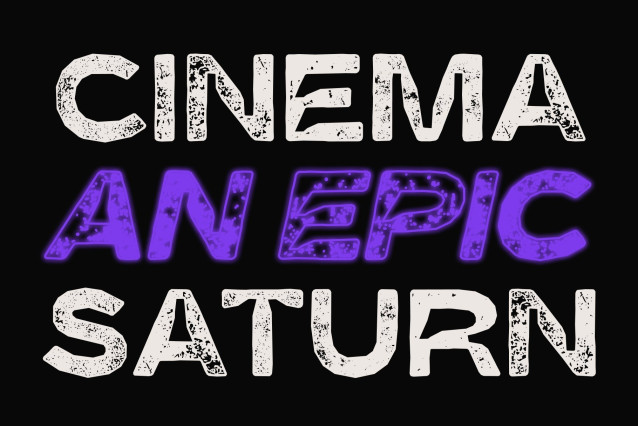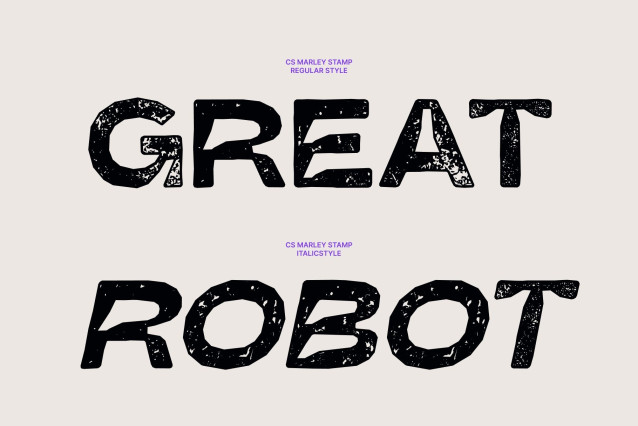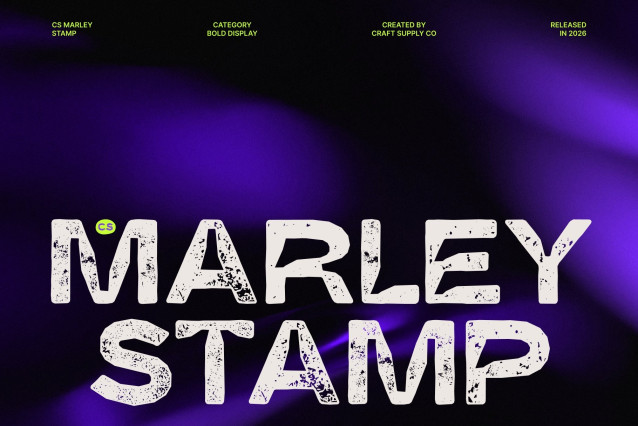
CS Marley Stamp Font
CS Marley Stamp – Funky Inktrap Sans Serif with Expressive Character
Modern Sans Serif with Playful Precision
This is a contemporary sans serif font that blends clean structure with lively personality. Built with distinctive inktrap details and enhanced by a subtle stamp texture, it transforms a functional type style into something bold, quirky, and full of character.
Inktrap Details with Textured Depth
The pronounced inktrap cuts sharpen corners and fine details, improving clarity while adding a unique visual rhythm. Combined with the stamped effect, the letterforms gain a handcrafted, slightly imperfect finish that gives the font warmth, personality, and a standout appearance.